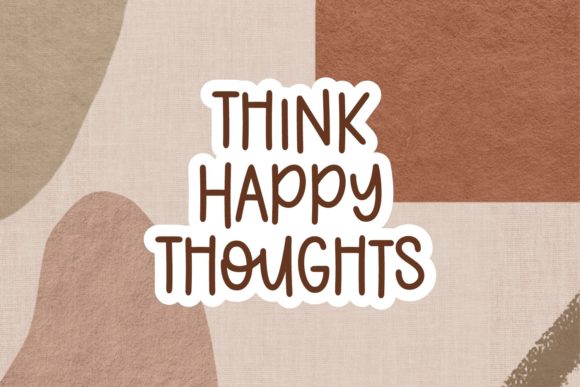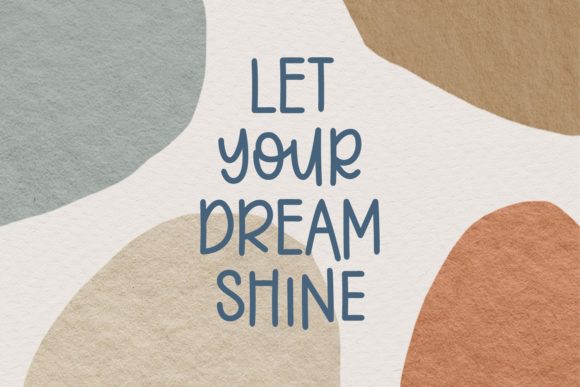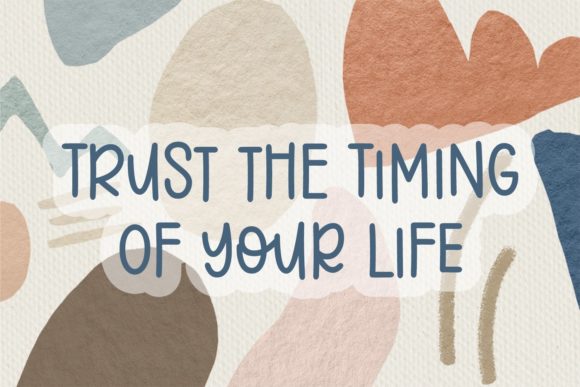
Introduction to Angel Without Wings Font
Angel Without Wings is a lively handwritten font with a bouncy and modern nature.
It will be sure to bring an element of fun to your next craft, print, or design .